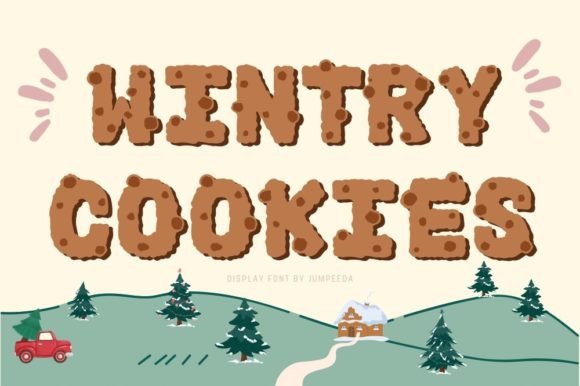
Wintry Cookies: A Festive Display Font for Creative Projects
Typography is one of the most powerful tools in a designerās toolkit, and choosing the right font can elevate a project from ordinary to extraordinary. Wintry Cookies is a fun and cute display font that captures the whimsical charm of the holiday season while offering versatility across a range of design applications. Whether you're crafting seasonal branding, designing festive social media posts, or enhancing packaging with a touch of personality, this font brings warmth, joy, and visual appeal to your work.
Why Wintry Cookies Stands Out in Graphic Design
Display fonts like Wintry Cookies are designed to make an impression. They often feature exaggerated characters, playful strokes, and unique details that help them stand out on both digital and print platforms. In contrast to standard sans-serif or serif fonts used for body text, display fonts are best suited for headlines, titles, and accents where creativity takes center stage. Wintry Cookies excels in these scenarios by blending a soft, approachable feel with subtle decorative flourishes that evoke the cozy spirit of winter.
The font's character set includes ligatures, alternate glyphs, and seasonal touches that make it ideal for creating content with a personal and engaging vibe. When integrated thoughtfully into a design workflow, it enhances brand identity by aligning with the emotional tone of the messageāperfect for holiday campaigns, greeting cards, or product launches with a seasonal theme.
Applications Across Visual Design
- Branding and Logo Design: Use Wintry Cookies to add a friendly, inviting feel to logos for cafes, bakeries, or gift shops during the colder months.
- Marketing Materials: From flyers to banners, this font helps create eye-catching promotional assets that resonate with audiences seeking comfort and celebration.
- Social Media Graphics: Its cheerful appearance works well for Instagram posts, Facebook ads, and Twitter headers, especially when paired with warm color palettes like reds, greens, and golds.
- Website and UI/UX Design: While not recommended for large blocks of text, it can be effectively used for call-to-action buttons, headings, and interactive elements to drive user engagement.
- Packaging Design: The font adds a nostalgic and charming touch to holiday-themed boxes, bags, and labels, helping products stand out in crowded retail spaces.
- Editorial Layouts: Ideal for magazine covers, newsletters, or blog headers, Wintry Cookies sets the mood and guides the readerās attention naturally.
Best Practices for Using Wintry Cookies
To ensure a professional outcome when using display fonts like Wintry Cookies, consider the following tips:
- Use Sparingly: Display fonts should be reserved for short texts. Overusing them can compromise readability and overwhelm the viewer.
- Maintain Consistency: Pair Wintry Cookies with a complementary sans-serif or serif font for supporting text to maintain visual harmony throughout the design.
- Optimize for Scalability: Always test how the font looks at different sizesāespecially on mobile devices or in printāto avoid distortion or loss of detail.
- Align with Brand Tone: Make sure the font supports the overall message and aesthetic of the brand. It fits well with brands that want to convey warmth, nostalgia, and approachability. Balance with Color and Imagery: Combine it with high-quality imagery and a cohesive color palette to reinforce the emotional impact of the design.
Incorporating typography into visual hierarchy is crucial for guiding the audienceās focus. Wintry Cookies, with its bold and expressive style, can serve as a headline anchor in posters, advertisements, or landing pages. Just be mindful of spacing and alignment to keep the layout clean and legible.
Enhancing User Experience with Thoughtful Typography
Fonts arenāt just about aestheticsāthey also influence user experience (UX) and interface (UI) design. A well-chosen display font like Wintry Cookies can make digital experiences more memorable and emotionally resonant. For instance, in app onboarding screens or e-commerce product listings, the font can help build anticipation and excitement around seasonal offers or limited-edition items.
Designers should also evaluate how the font interacts with other creative assets. Does it pair well with the brandās icons? How does it respond to varying background textures or colors? These considerations ensure the font doesn't clash but instead enhances the overall composition and clarity of the message.
When used in presentations or advertising campaigns, Wintry Cookies can transform static slides into visually compelling stories. Think of it as a storytelling tool that adds personality without sacrificing professionalism.
Ultimately, the key to successful typography lies in understanding the audience and the context. Wintry Cookies thrives in environments where a lighthearted, joyful tone is appropriateāmaking it a go-to choice for designers aiming to connect with users on an emotional level during the winter season and beyond.
By integrating quality creative assets like Wintry Cookies into your design projects, you not only enhance visual appeal but also strengthen communication and foster deeper audience engagement.